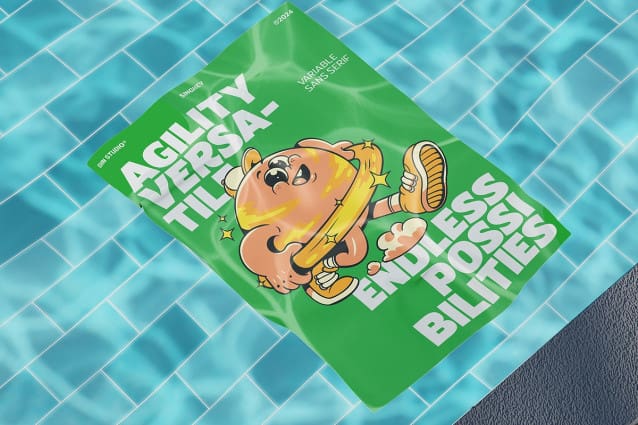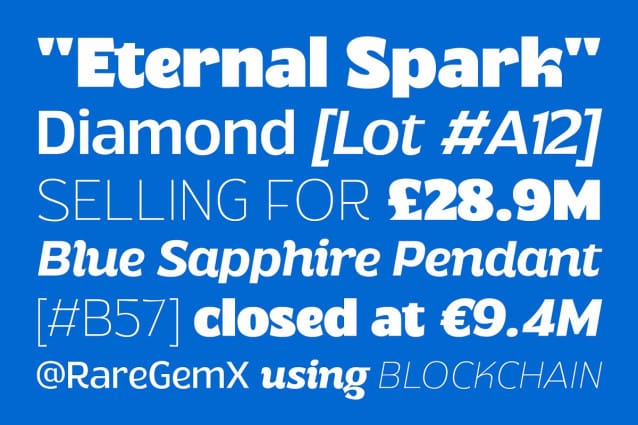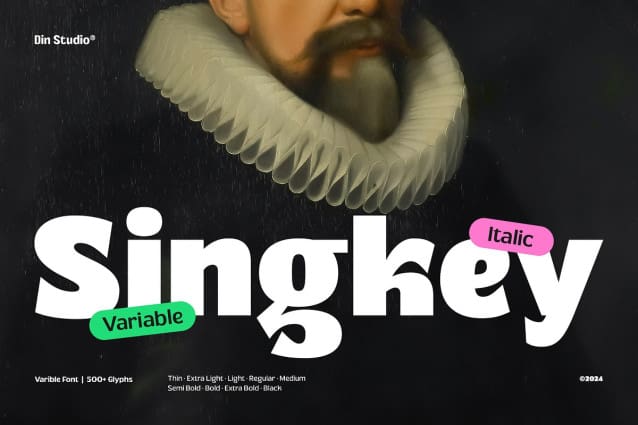
Singkey Font
Singkey Font is a versatile sans serif font family designed in a clean and modern style. Made in 9 different weights and matching italic versions, Rimland offers complete freedom and flexibility for any project. This font family delivers a contemporary and professional touch to elevate your designs.